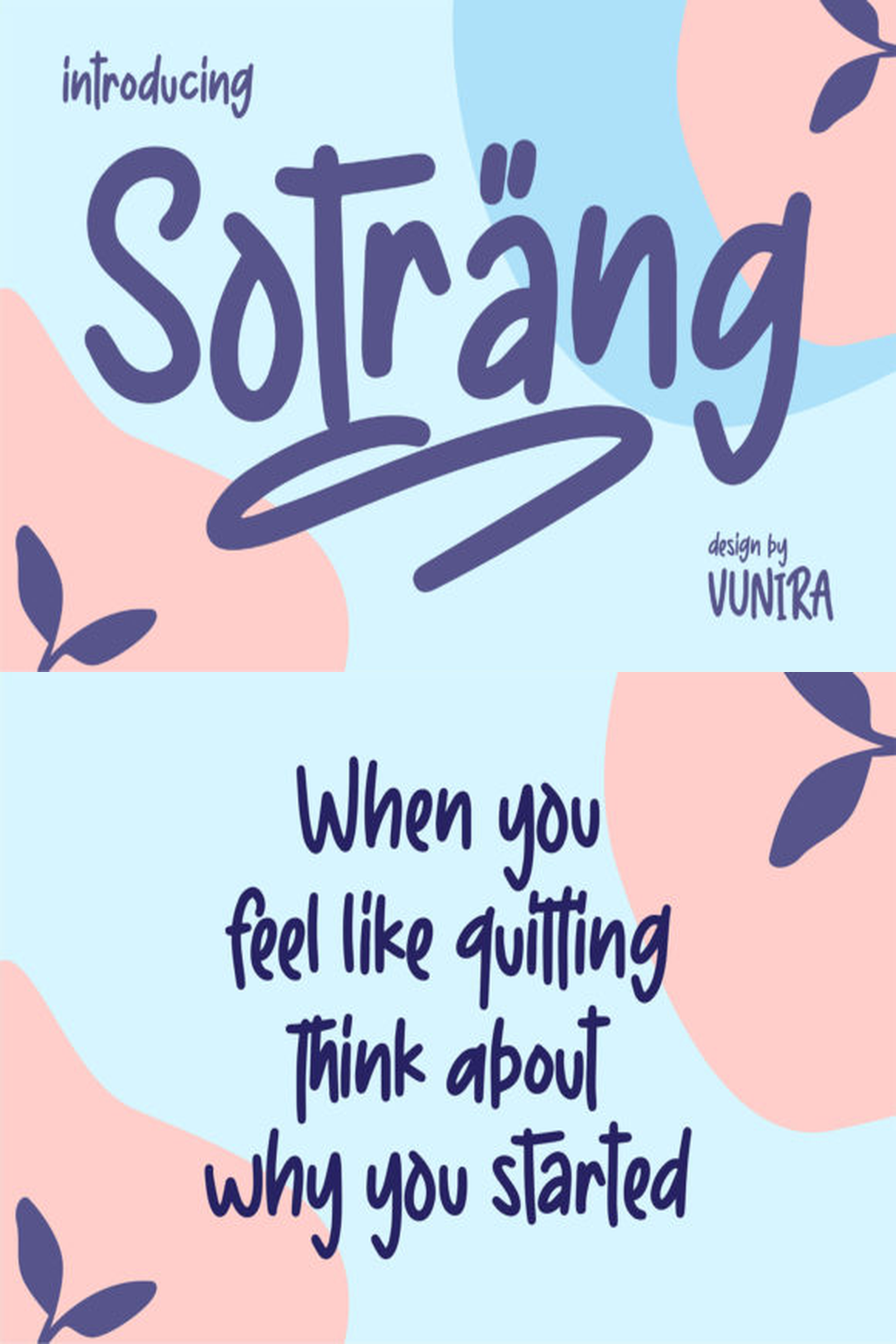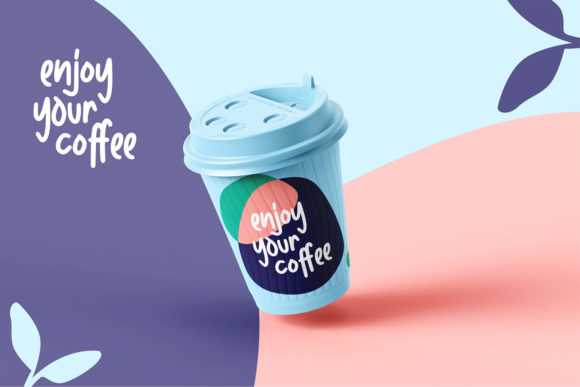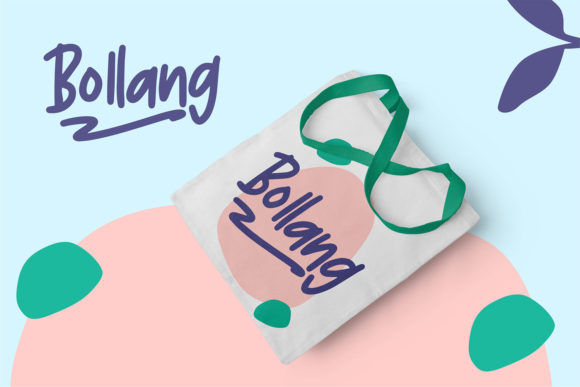
Sotrang Font Font
About the Sotrang Font Font
The Sotrang Font Font offers a perfect balance of form and function for your design needs. Sotrang is a fun and friendly script font. A little bit quirky, this font looks incredibly adept on a wide variety of contexts!
Sotrang Font Font Usage Examples